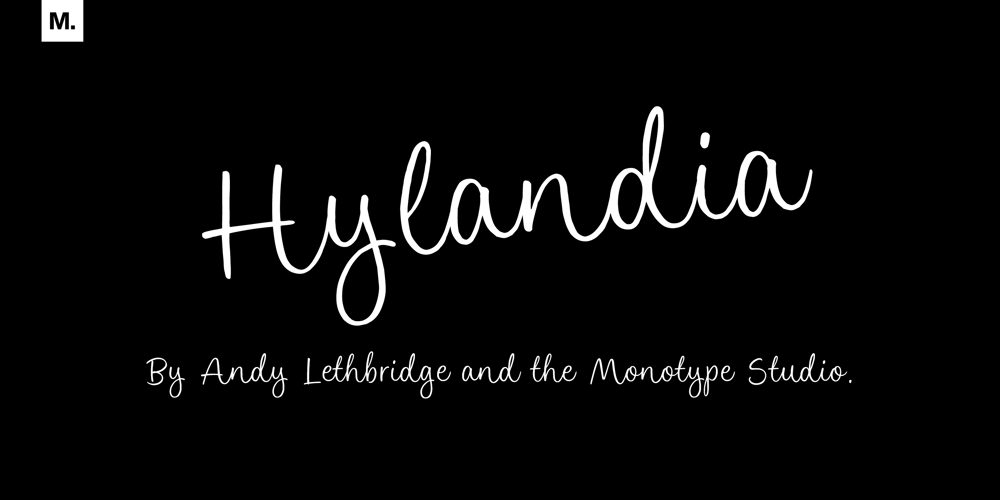
Hylandia
Hylandia font
Hylandia Font Family was designed by Andrew Lethbridge and published by Monotype. Hylandia contains 1 styles and family package options. Delicate but spirited, Hylandia is a cursive script with gorgeous looping letterforms drawn with a light touch using a thin brush pen. This font has a sensitive sense of delicacy and care, with clear roots in calligraphy and tradition. Hylandia is available with some ligatures and alternate forms.